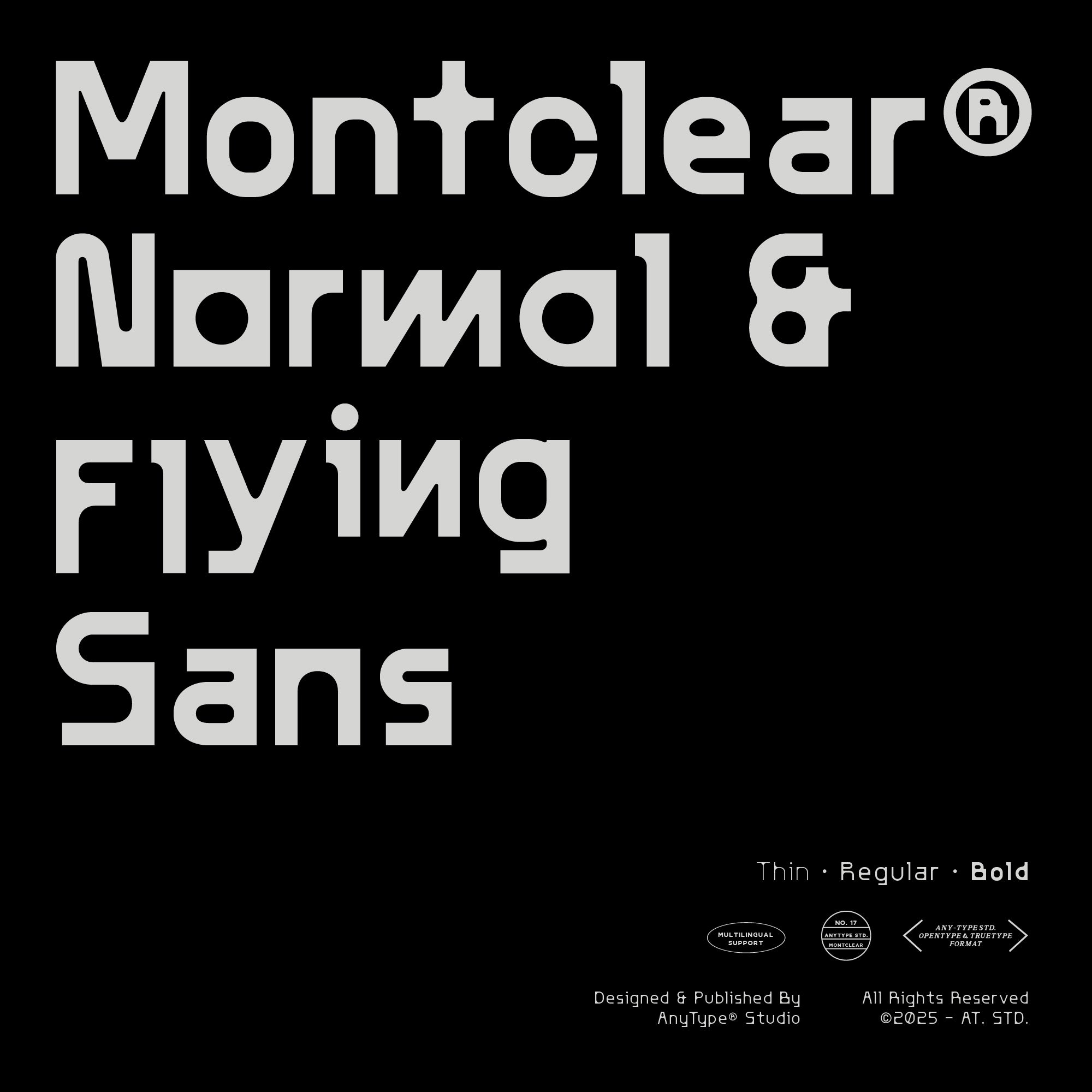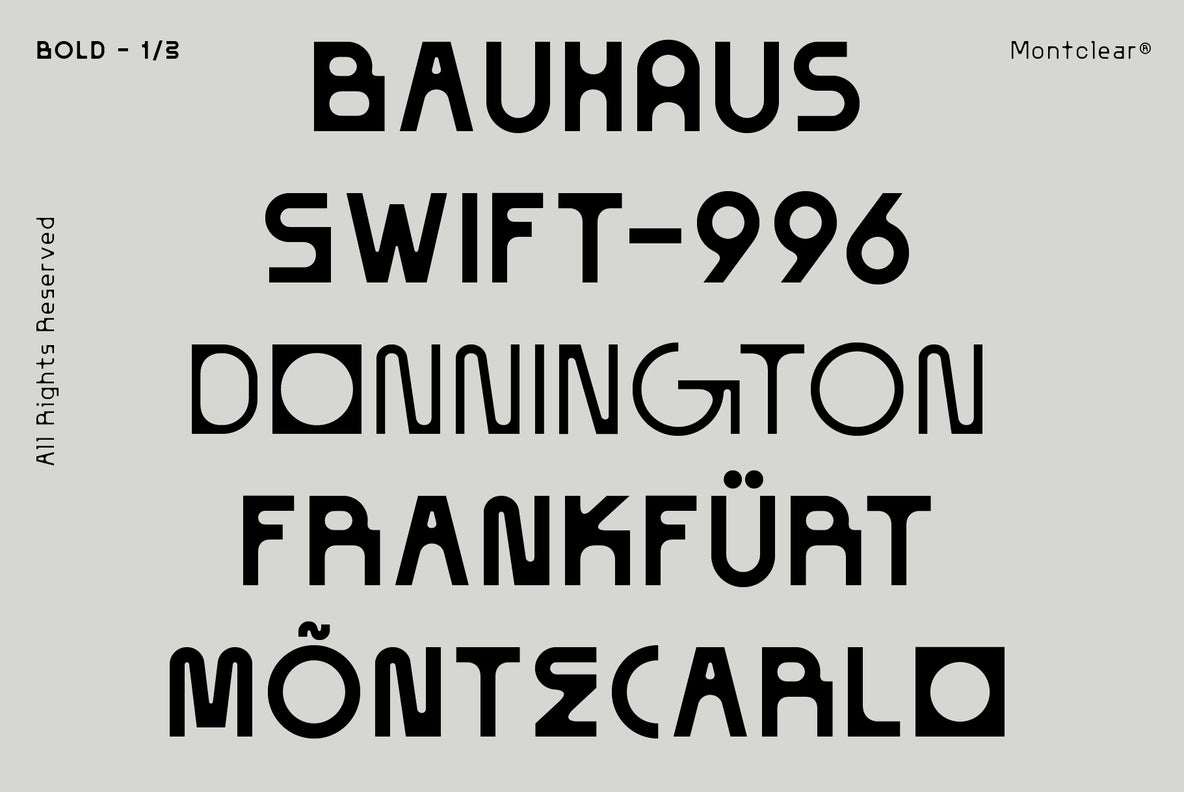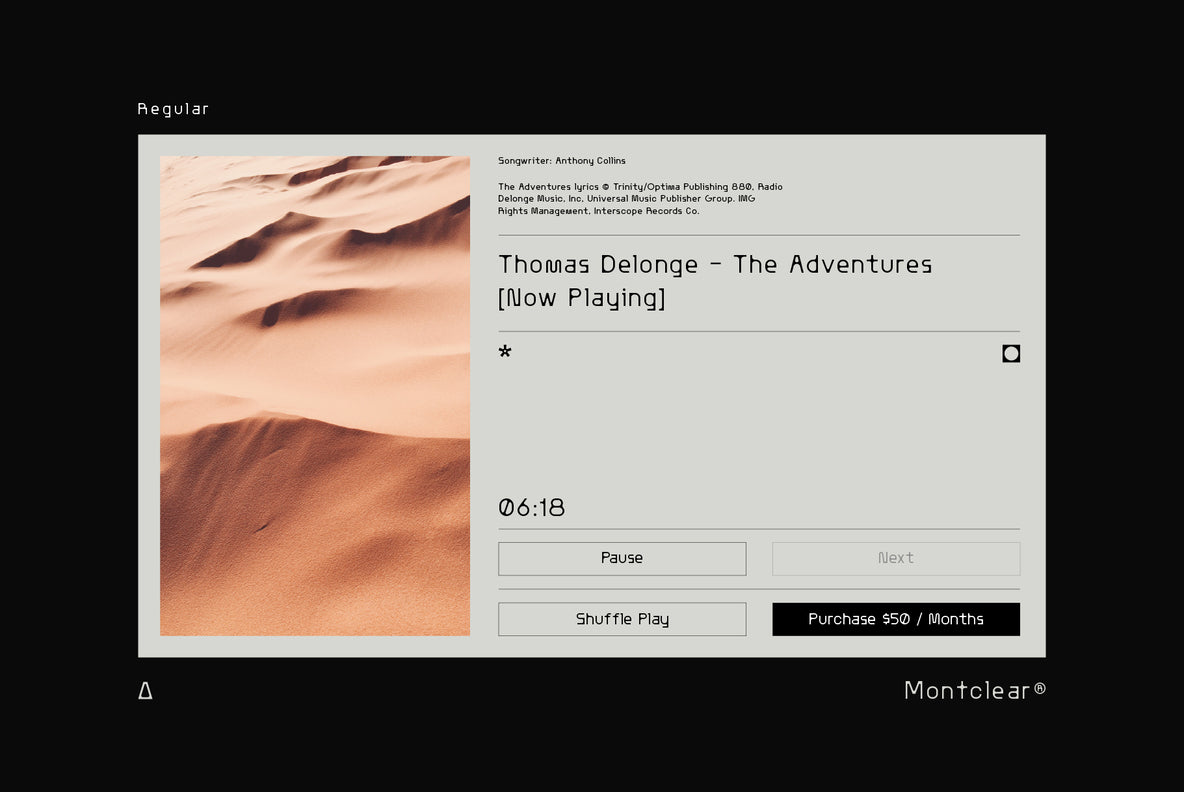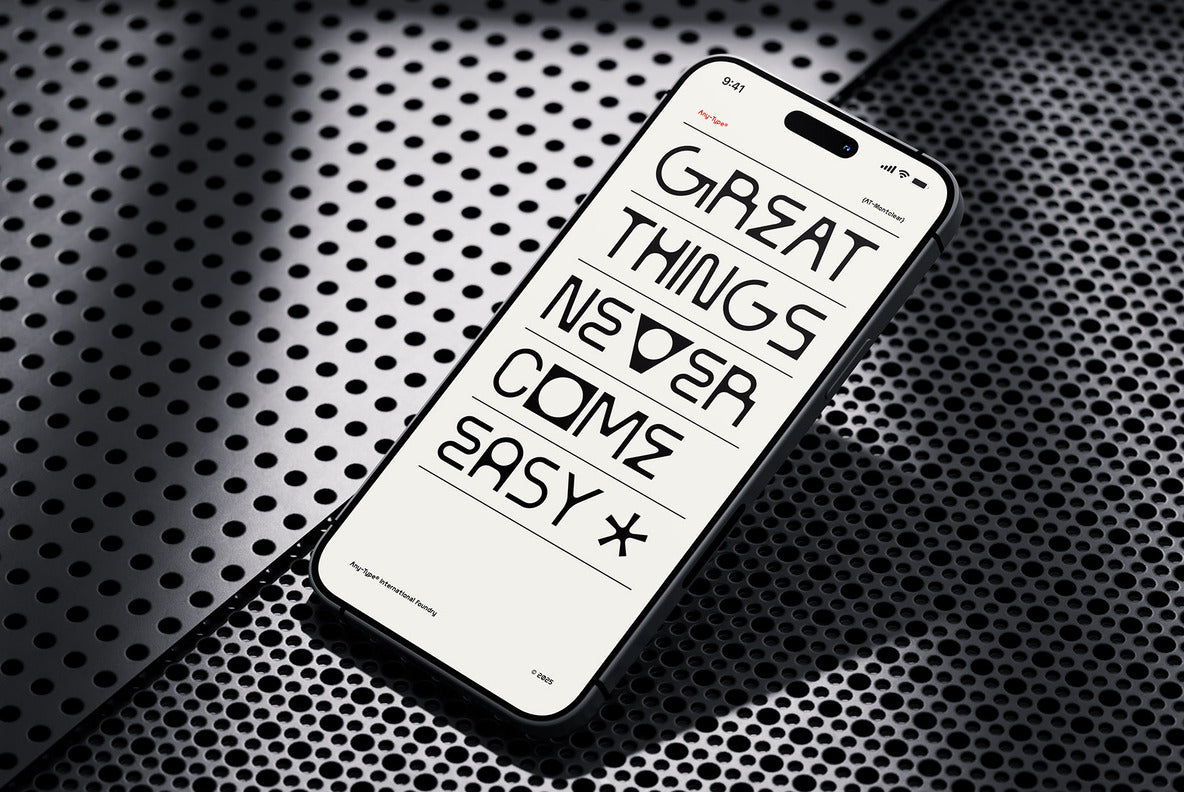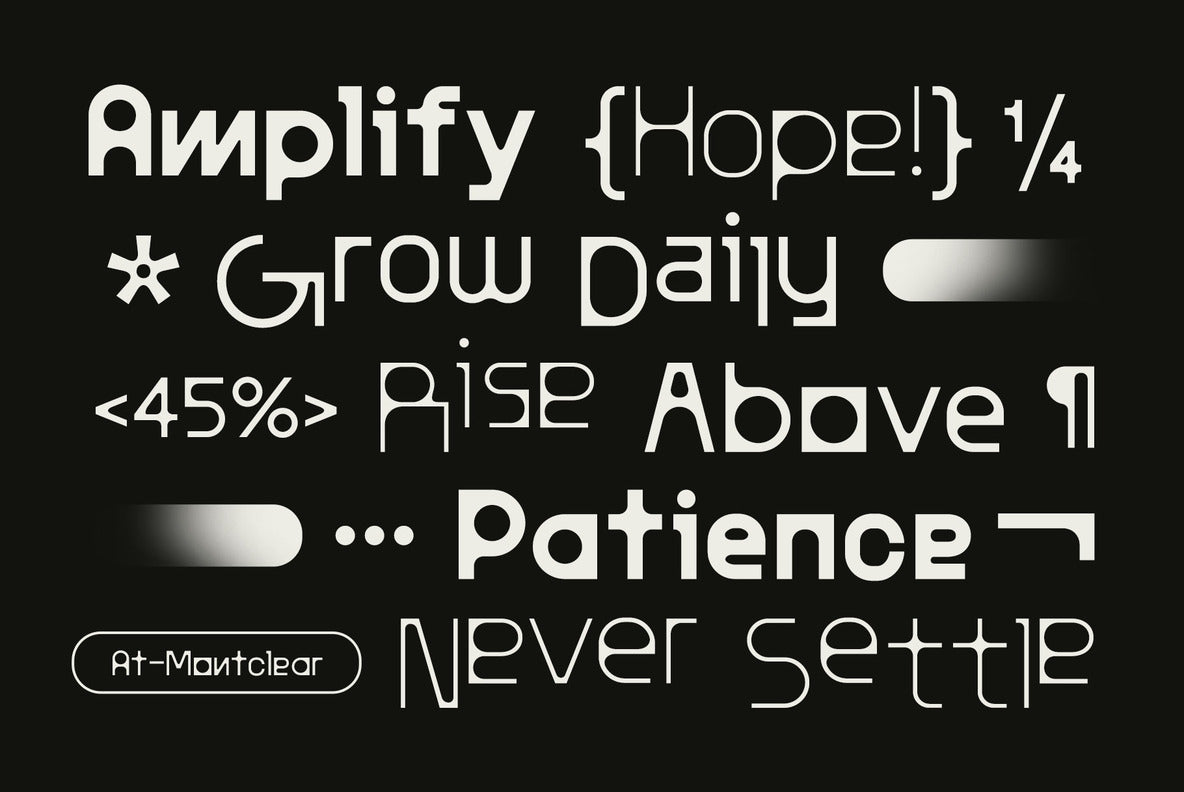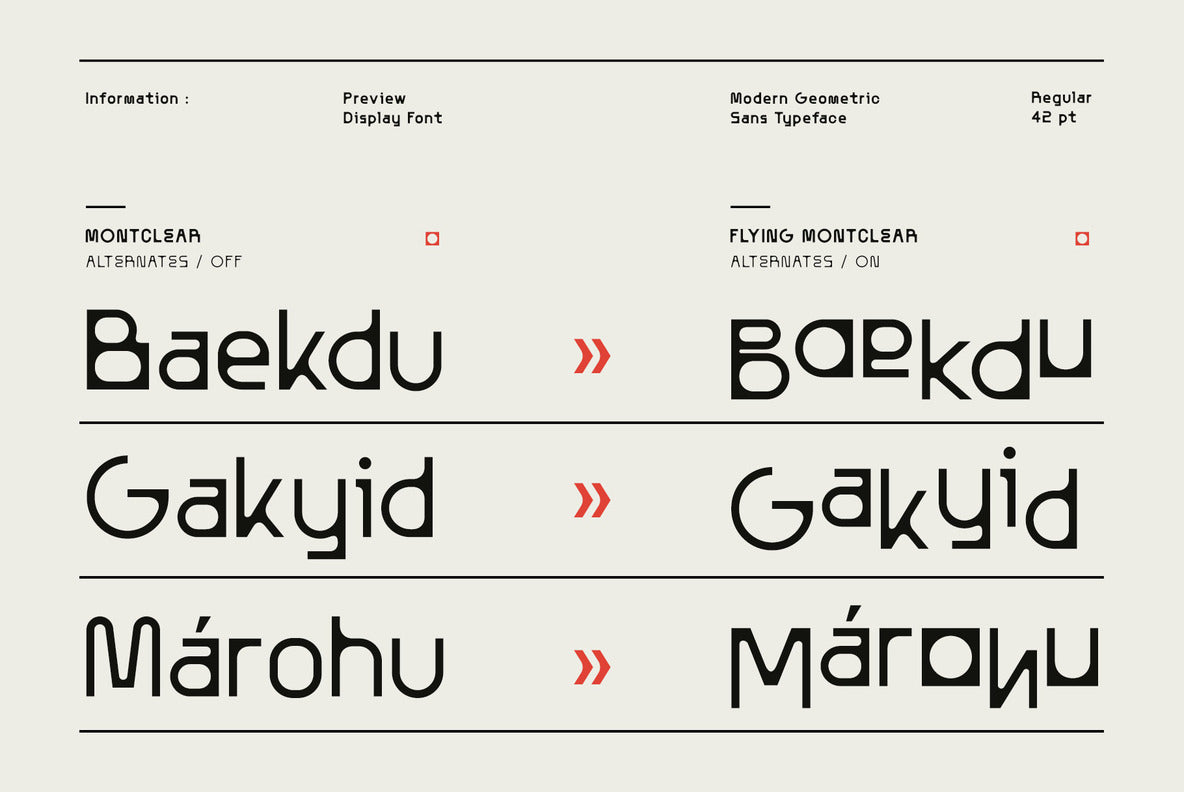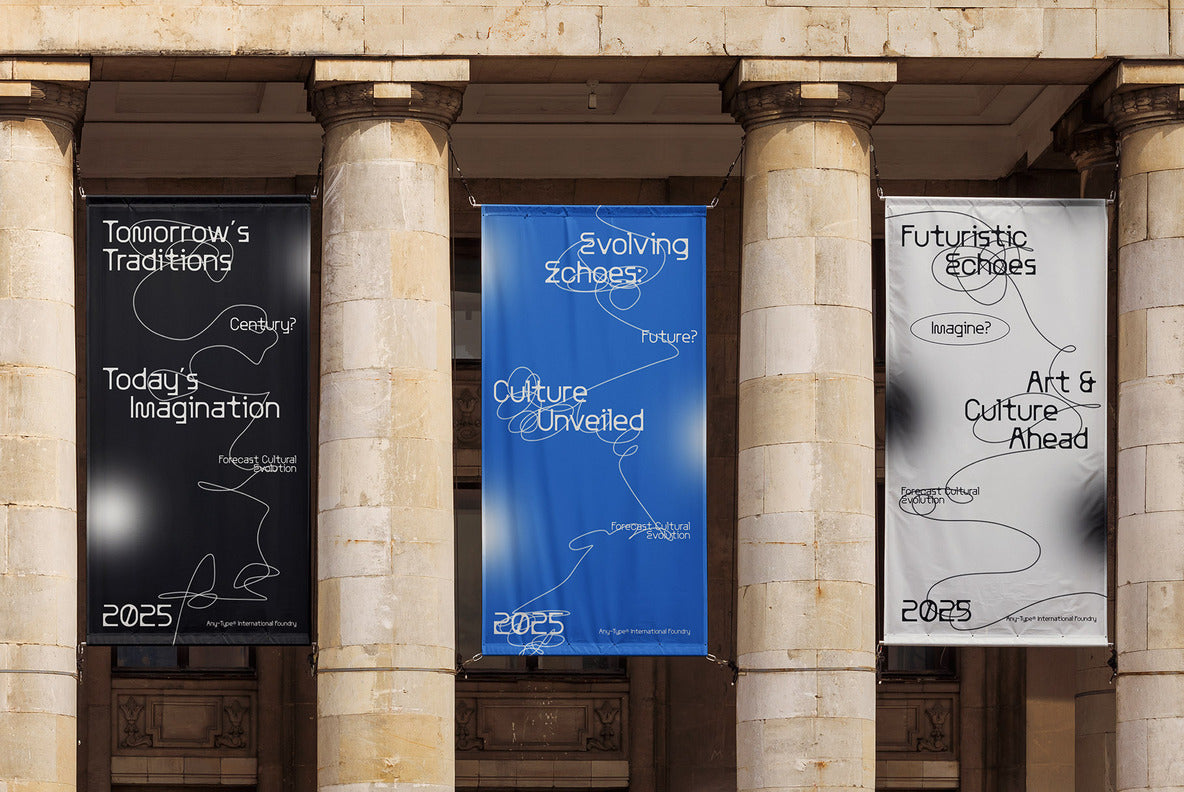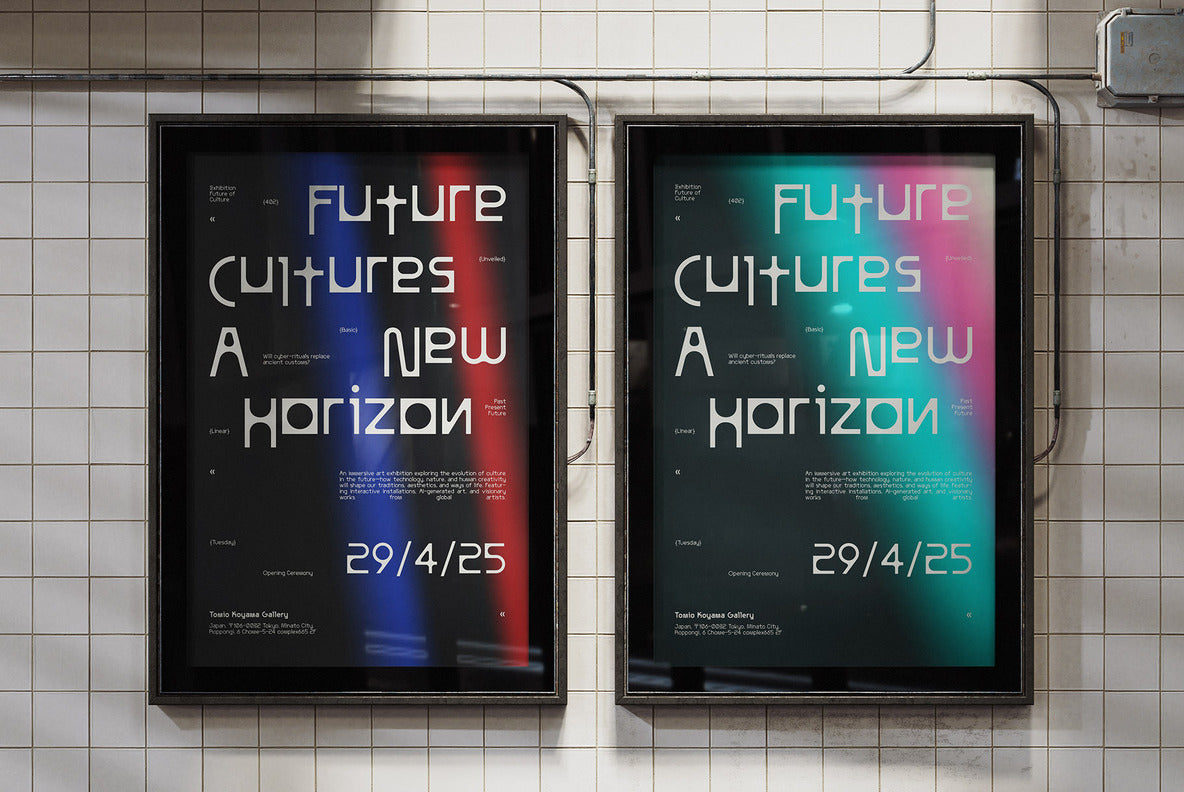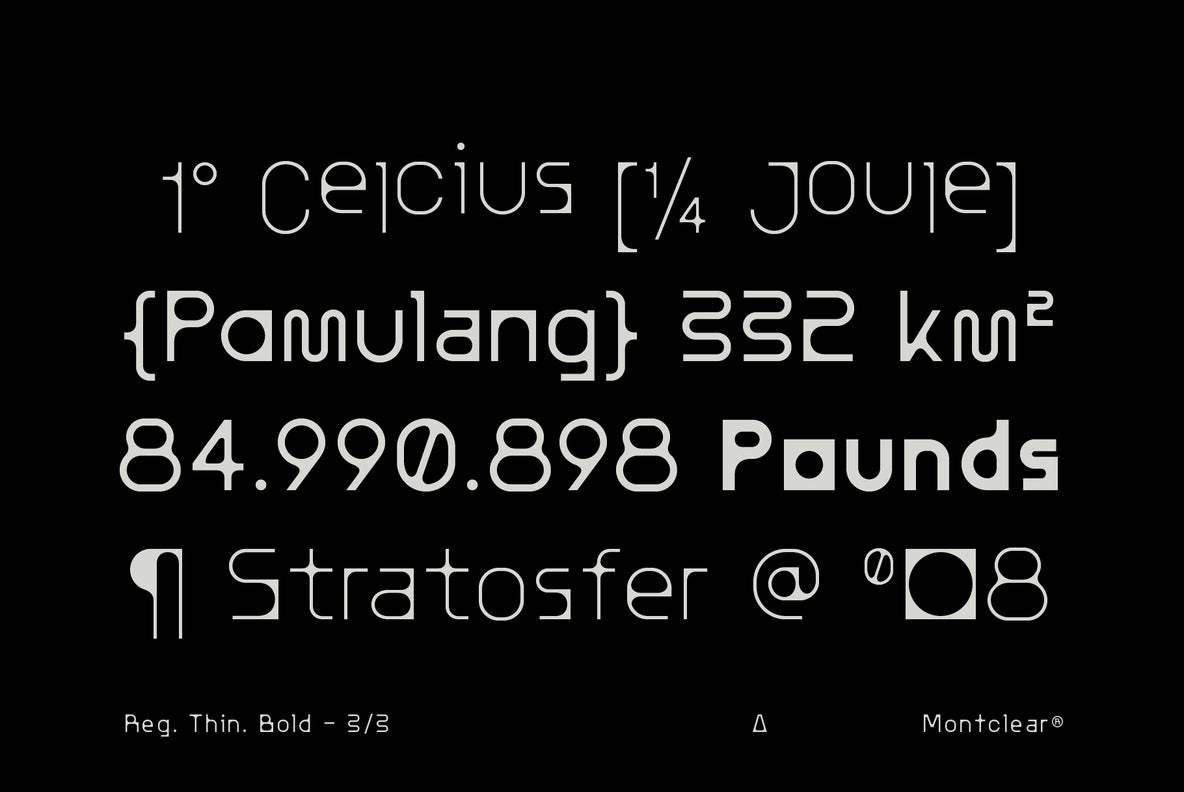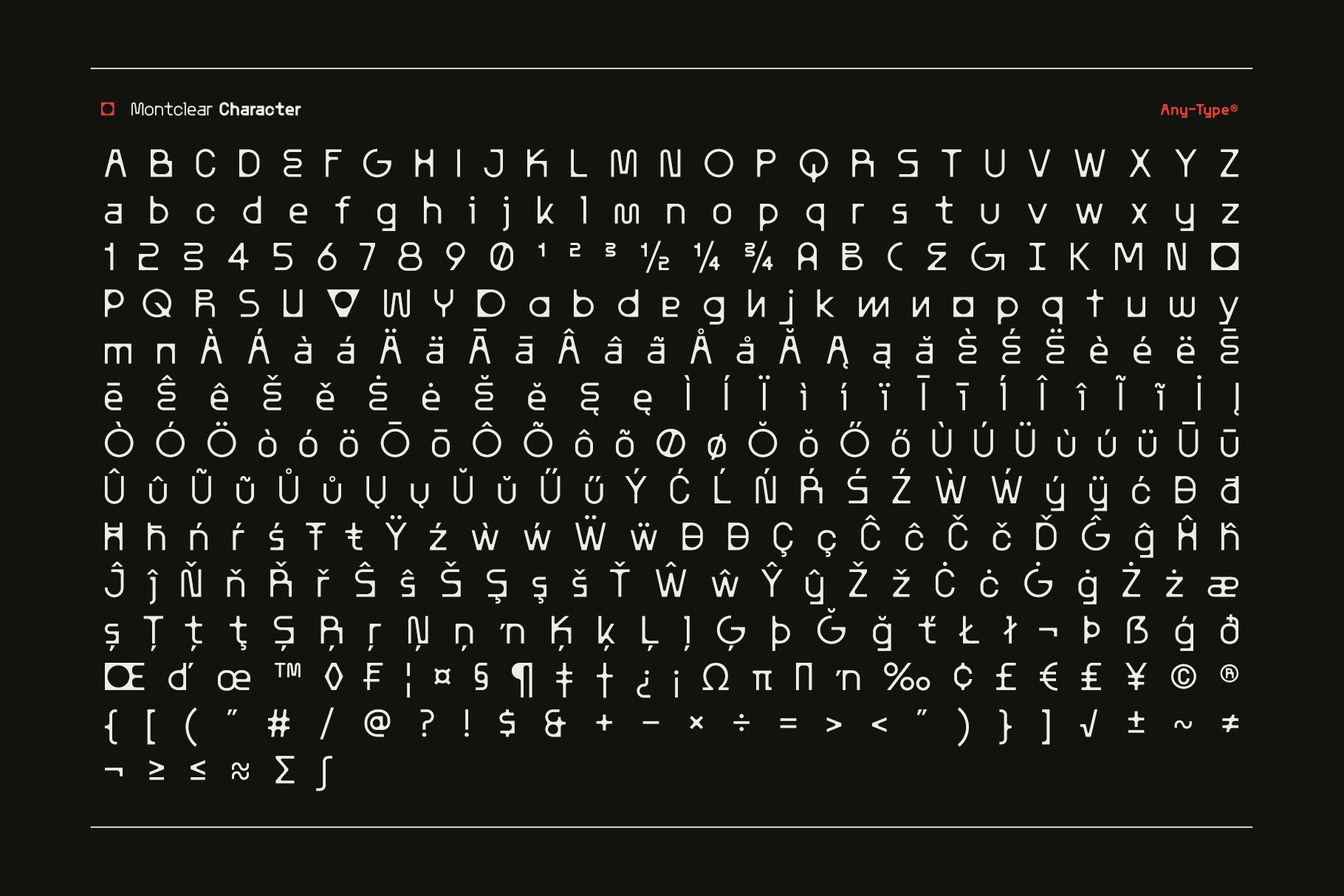
AT Montclear: Versatile Font with Dynamic Styles
AT Montclear is a versatile font featuring two styles, Normal and Flying, each available in three weights: Thin, Regular, and Bold. It offers multilingual support and includes alternate options for dynamic styling, making it suitable for a variety of design projects.